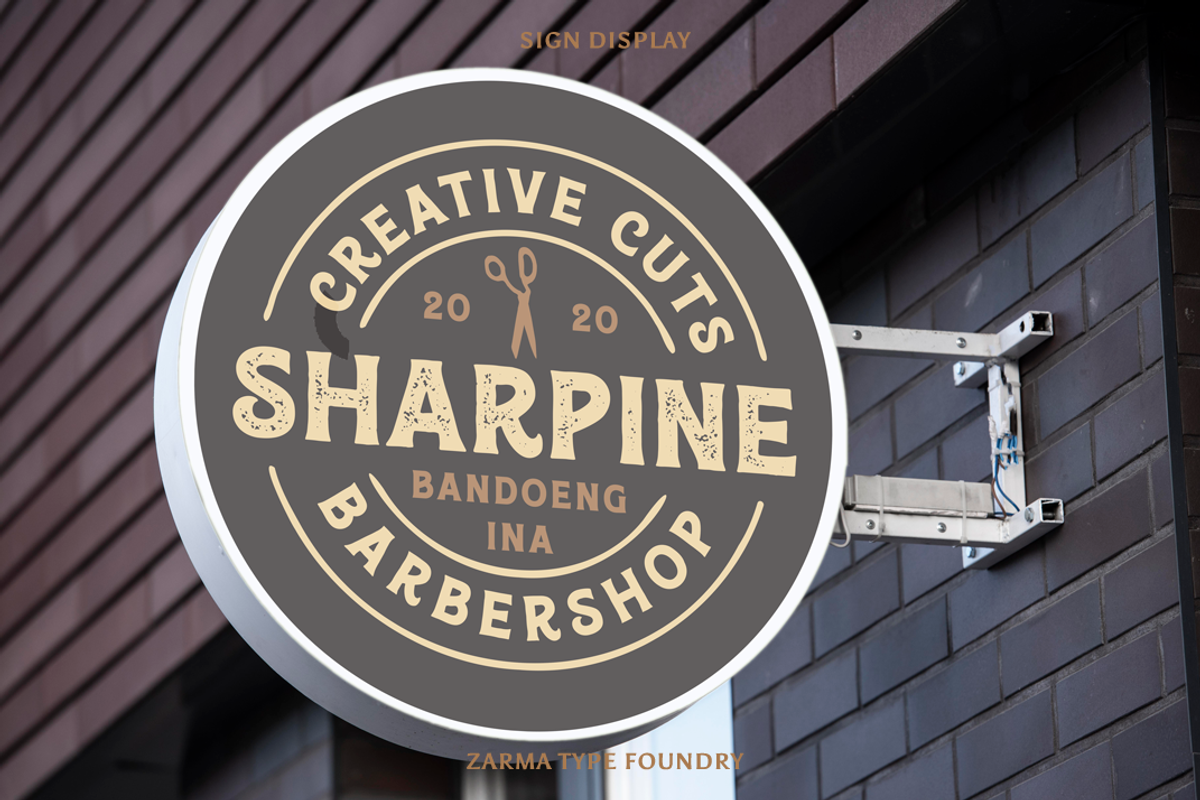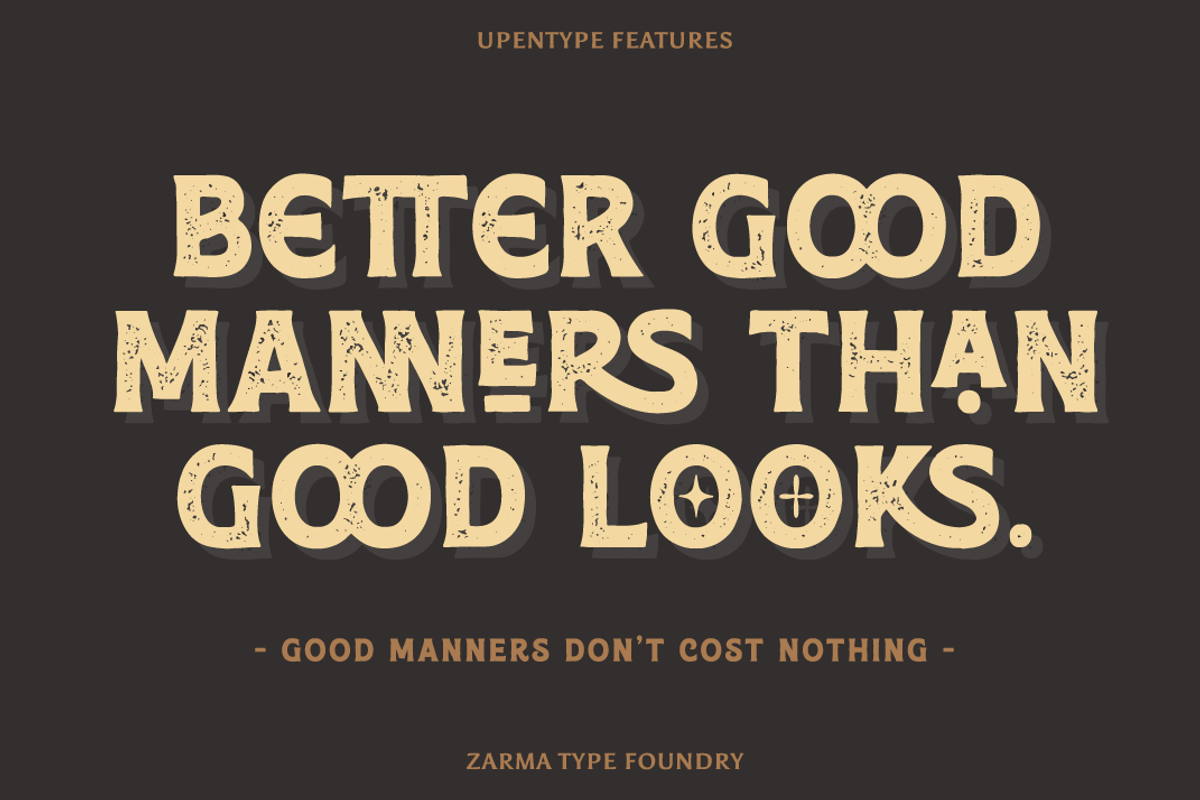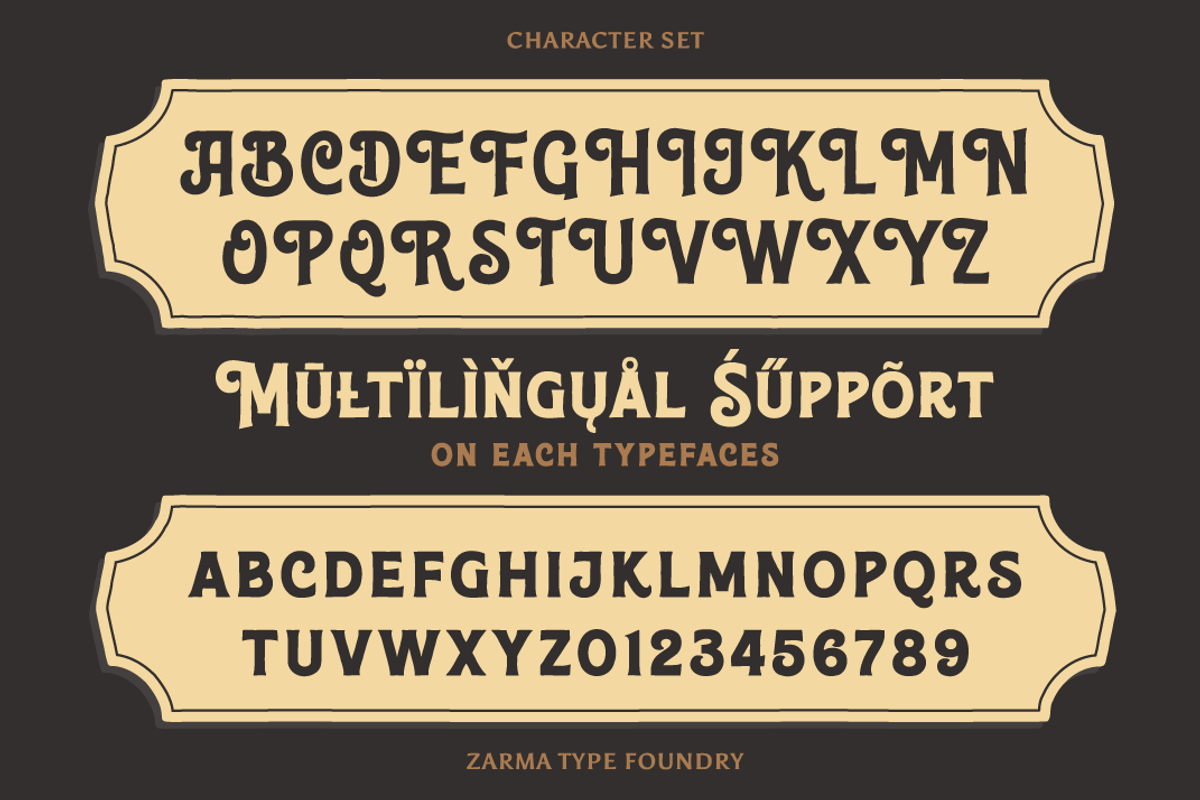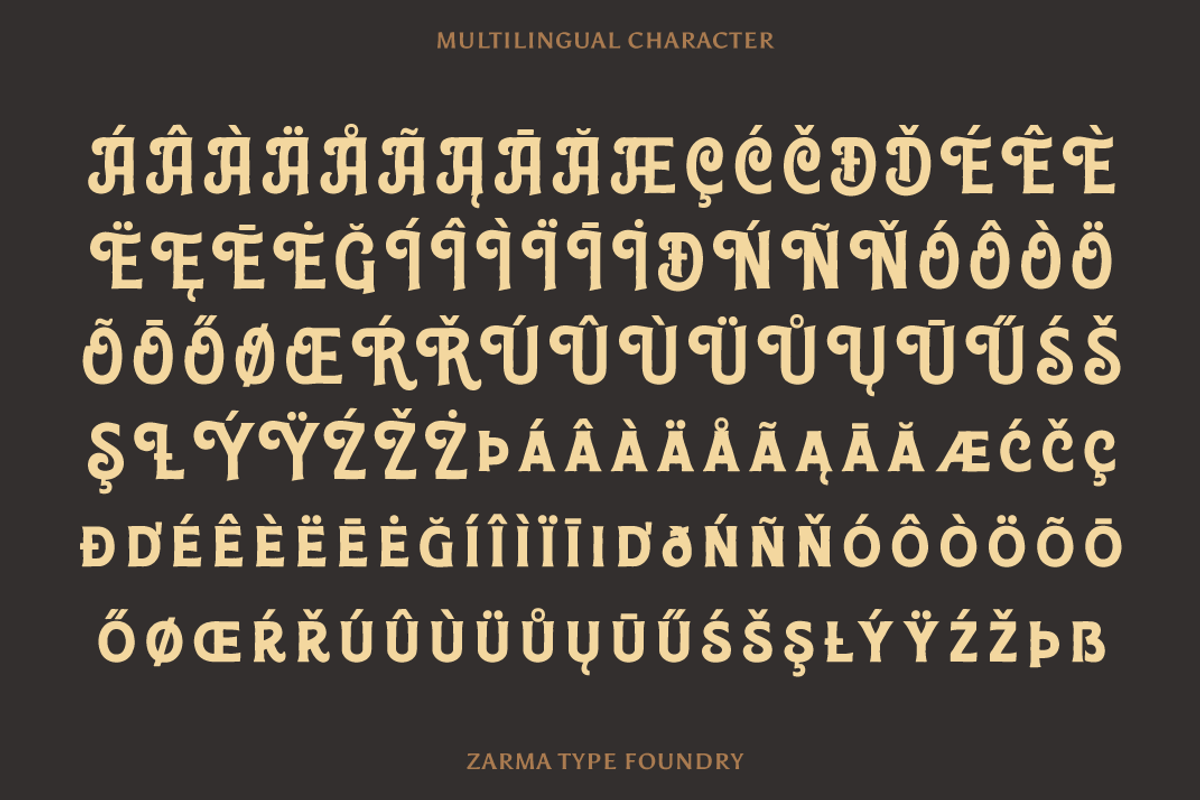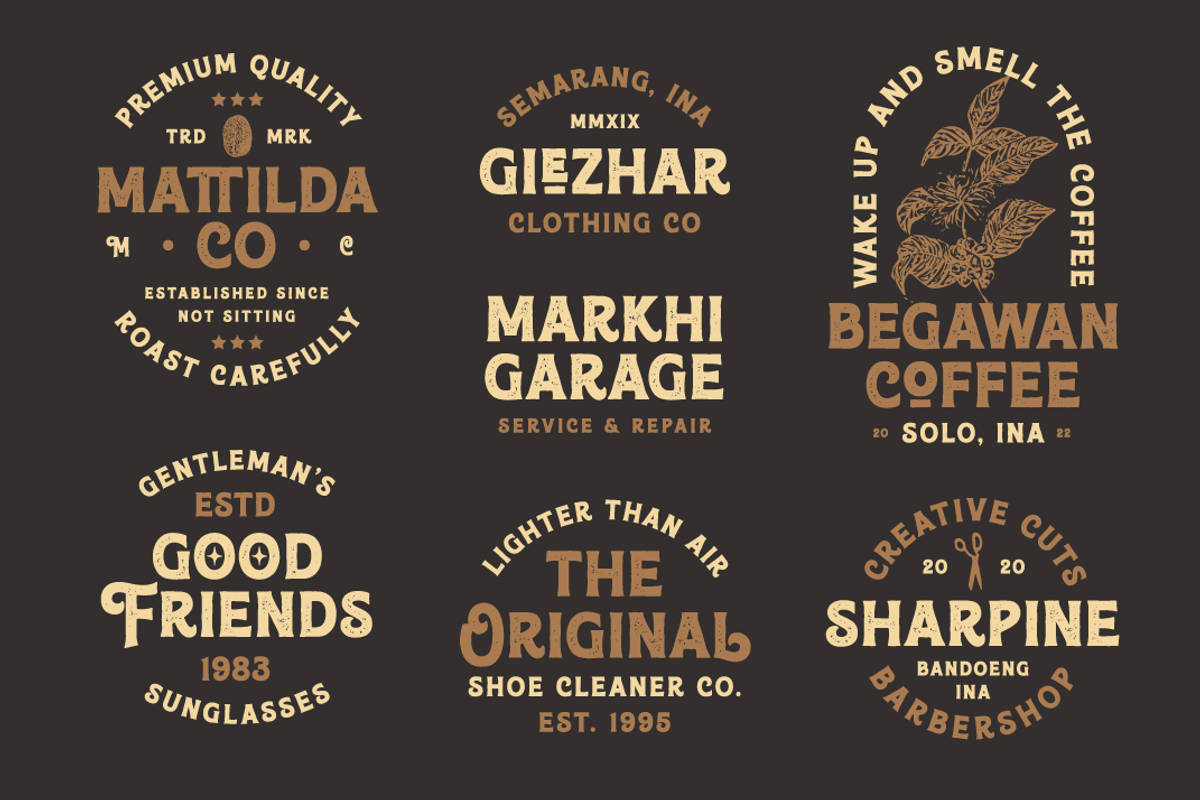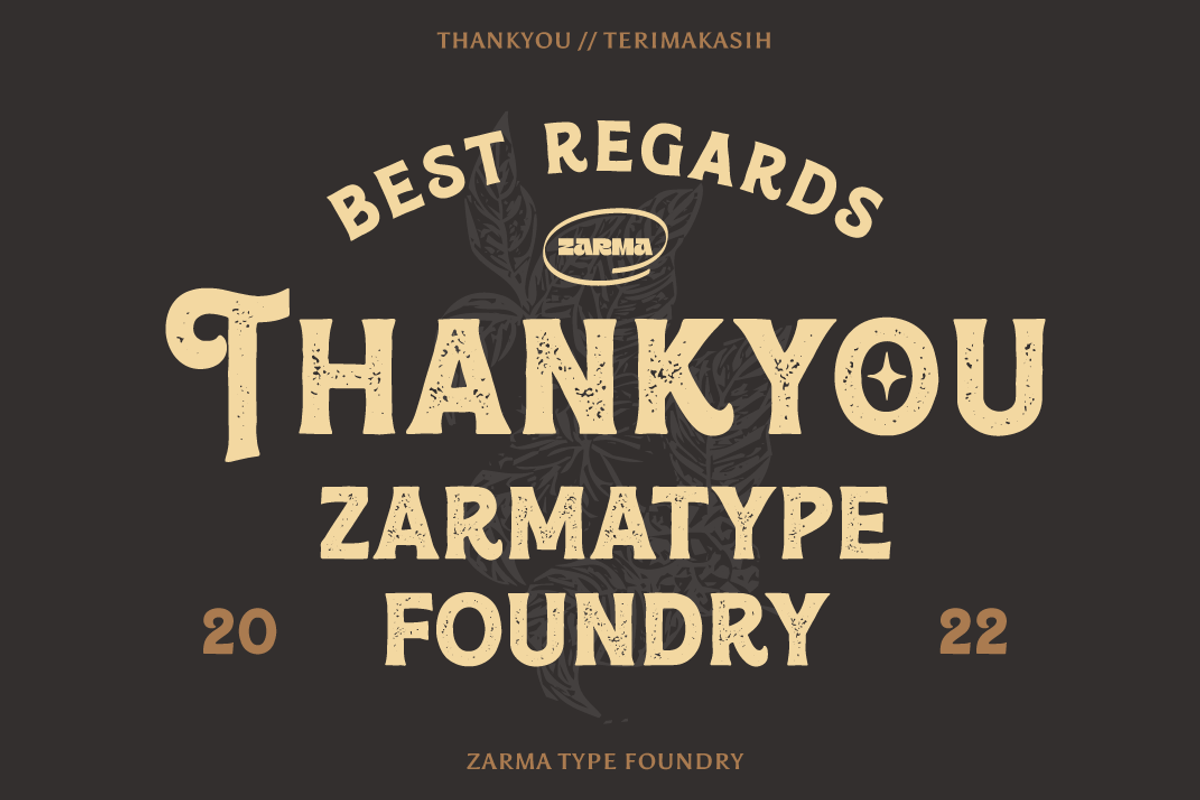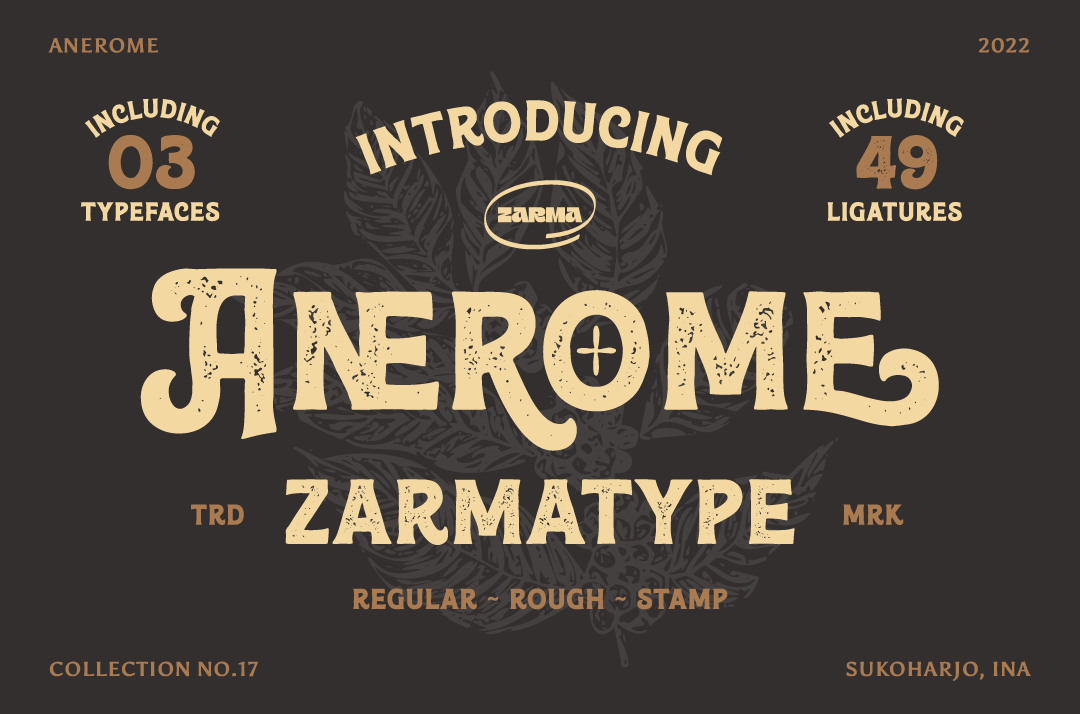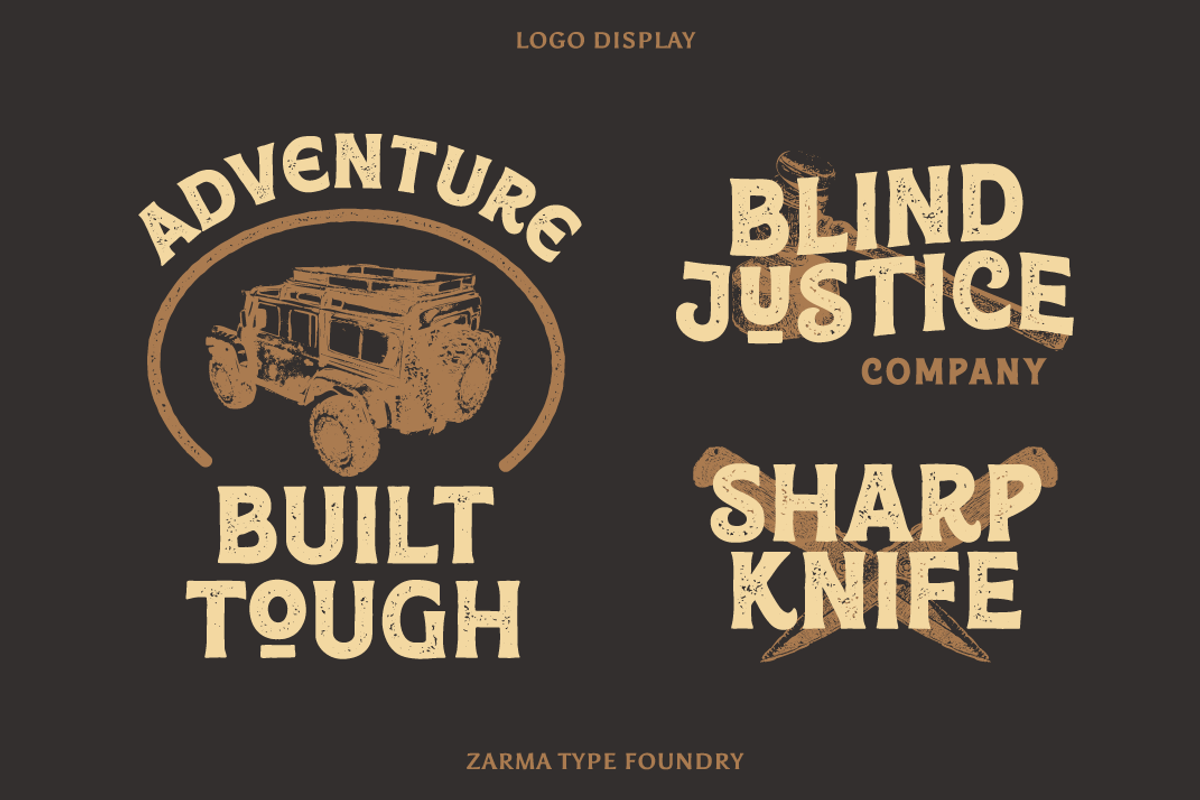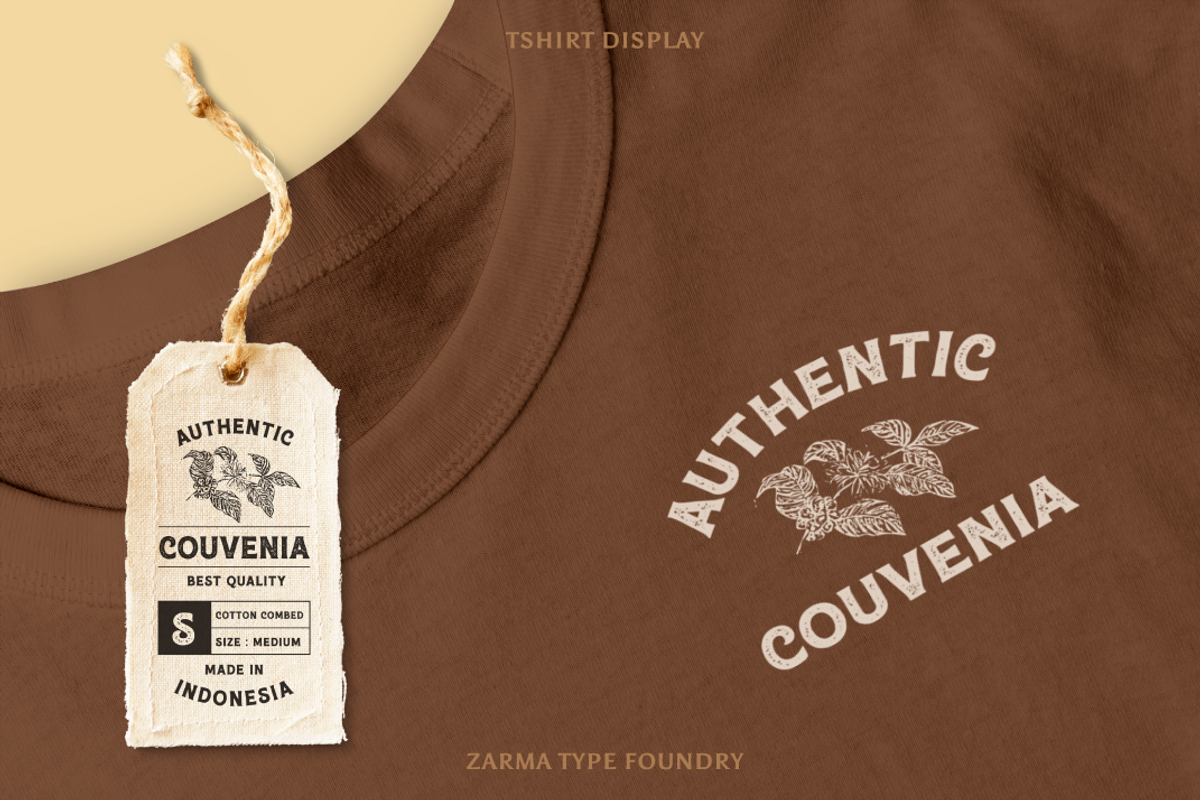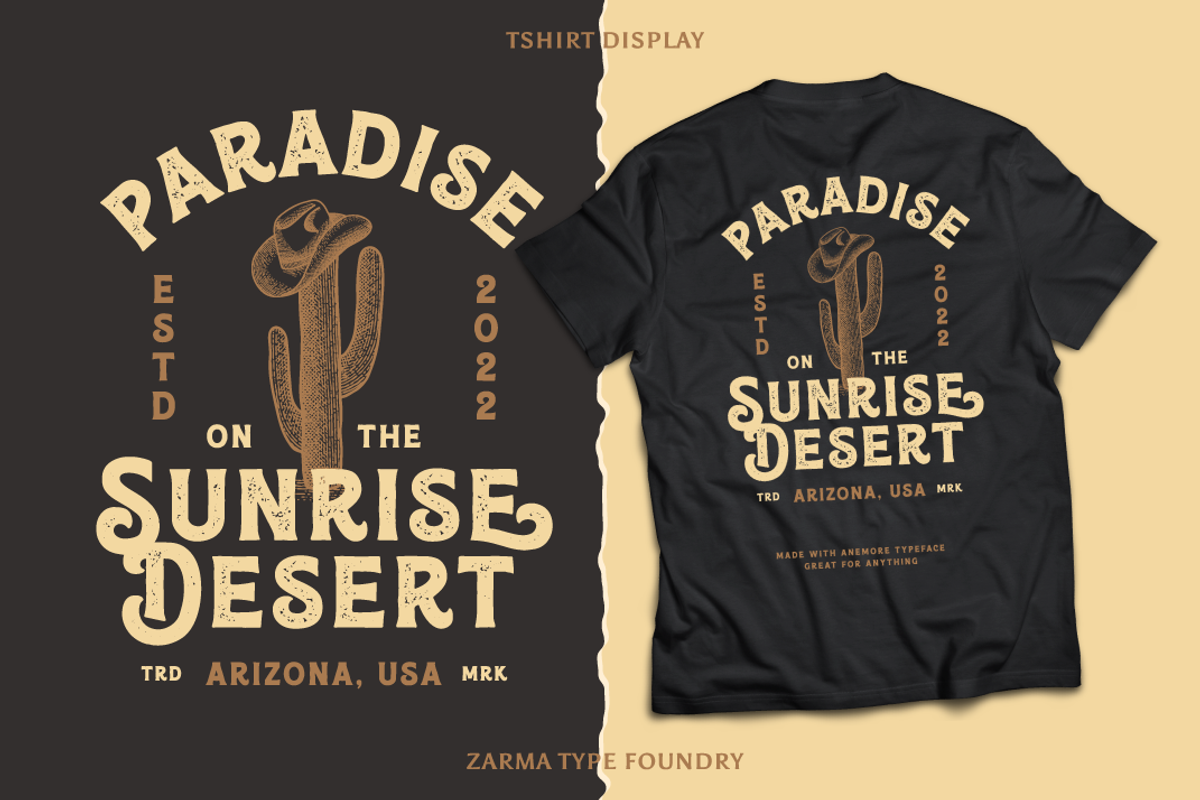
Anerome - Vintage Display Font
Introducing Anerome, a vintage display typeface contains a set of 3 style fonts with an authentic vintage look. Anerome comes packed with over 300 glyphs containing stylistic alternates and discretionary ligature characters. This font is perfect for people are looking for vintage aesthetic or logotype. Suitable for any graphic designs such as branding materials, print, business cards, logo, poster, t-shirt, quotes .etc.